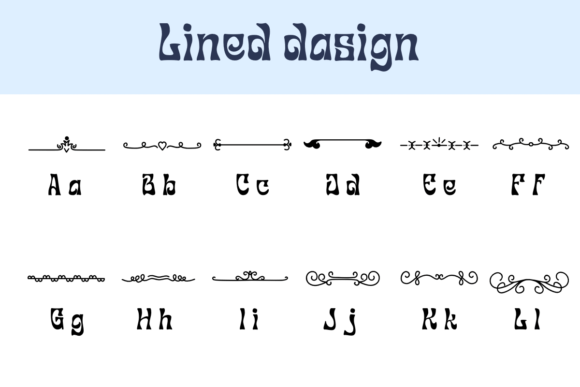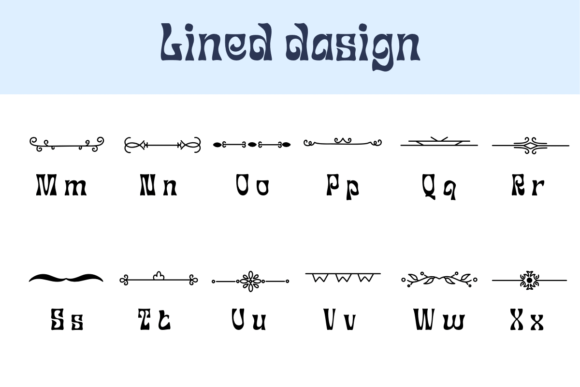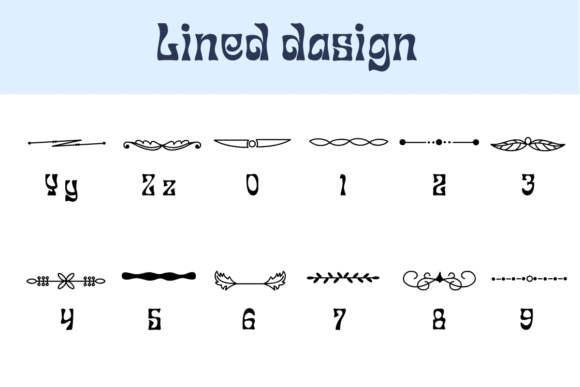
Introduction to Lined Dasign Font
Remember that moment when you were brainstorming ideas for a wedding invitation, and you wanted to add a touch of whimsy to make it truly special? That’s when a beautifully designed font can make all the difference. For designers and crafty enthusiasts, finding the perfect font can be a game-changer. Enter Lined Dasign Font, a lovely dingbat font with a cute theme that’s perfect for adding a personal touch to your creative projects.
Whether you’re working on a DIY craft, designing decorations, or creating logos, Lined Dasign Font is a valuable design resource that can elevate your work to the next level. With its transparent background and high-quality design, this font is a must-have for any designer or crafter looking to add a unique touch to their projects.
Key Features of Lined Dasign Font
- Unique Linework Design: The Lined Dasign Font features intricate linework that adds a creative touch to any project.
- Transparent Background: The font’s transparent background makes it easy to customize and integrate with any design resource.
- Perfect for Digital Art: The Lined Dasign Font is ideal for digital art, graphic design, and other creative projects that require a unique and eye-catching font.
- Customizable: The font’s linework can be customized to fit your design needs, making it a valuable design resource for any project.
Honest Review: Lined Dasign Font
I recently had the chance to work with the Lined Dasign Font, and I must say it’s been a game-changer for my creative projects. This free download has been a valuable design resource, offering high-quality lines and shapes that can easily be customized to fit any style.
- What works well: ✨ The transparent background of this font makes it incredibly versatile, allowing me to seamlessly integrate it into any design. The clean and modern aesthetic is perfect for a wide range of creative projects.
- What works well: ✨ The high level of customization options means I can easily adjust the lines and shapes to fit my specific design needs.
However, there are a few limitations to consider. ⚠️ The font is only available in a limited range of line weights, which may not be suitable for all design projects. Additionally, the font doesn’t come with a comprehensive user manual, which can make it difficult to navigate for beginners.
Overall, I’m really impressed with the Lined Dasign Font. While it may not be perfect, its unique design and high-quality lines make it a valuable addition to any designer’s toolkit. I highly recommend giving it a try, especially for those working on creative projects that require a modern and sleek aesthetic.
The Lined Dasign Font is a versatile and unique design resource perfect for creative projects. With its transparent background, this high-quality font is ideal for adding a touch of sophistication to your designs.
Getting the Most Out of Lined Dasign Font
To get the most out of the Lined Dasign Font, experiment with different styles and layouts to find the perfect fit for your design. This font is ideal for creating eye-catching headlines, titles, and captions.
The Lined Dasign Font is perfect for a range of creative projects, including:
- Business cards and marketing materials
- Infographics and data visualizations
- Book covers and magazine layouts